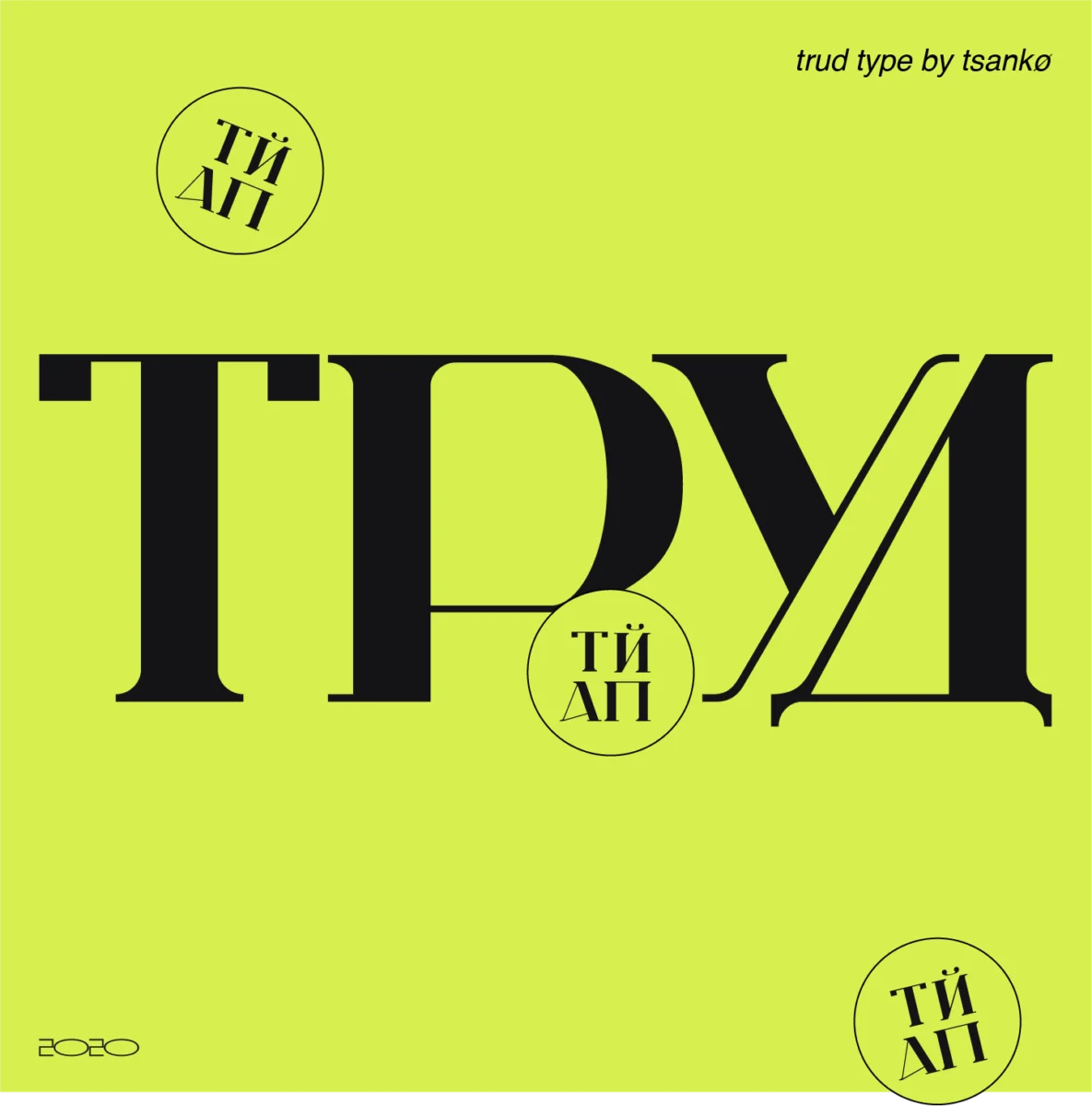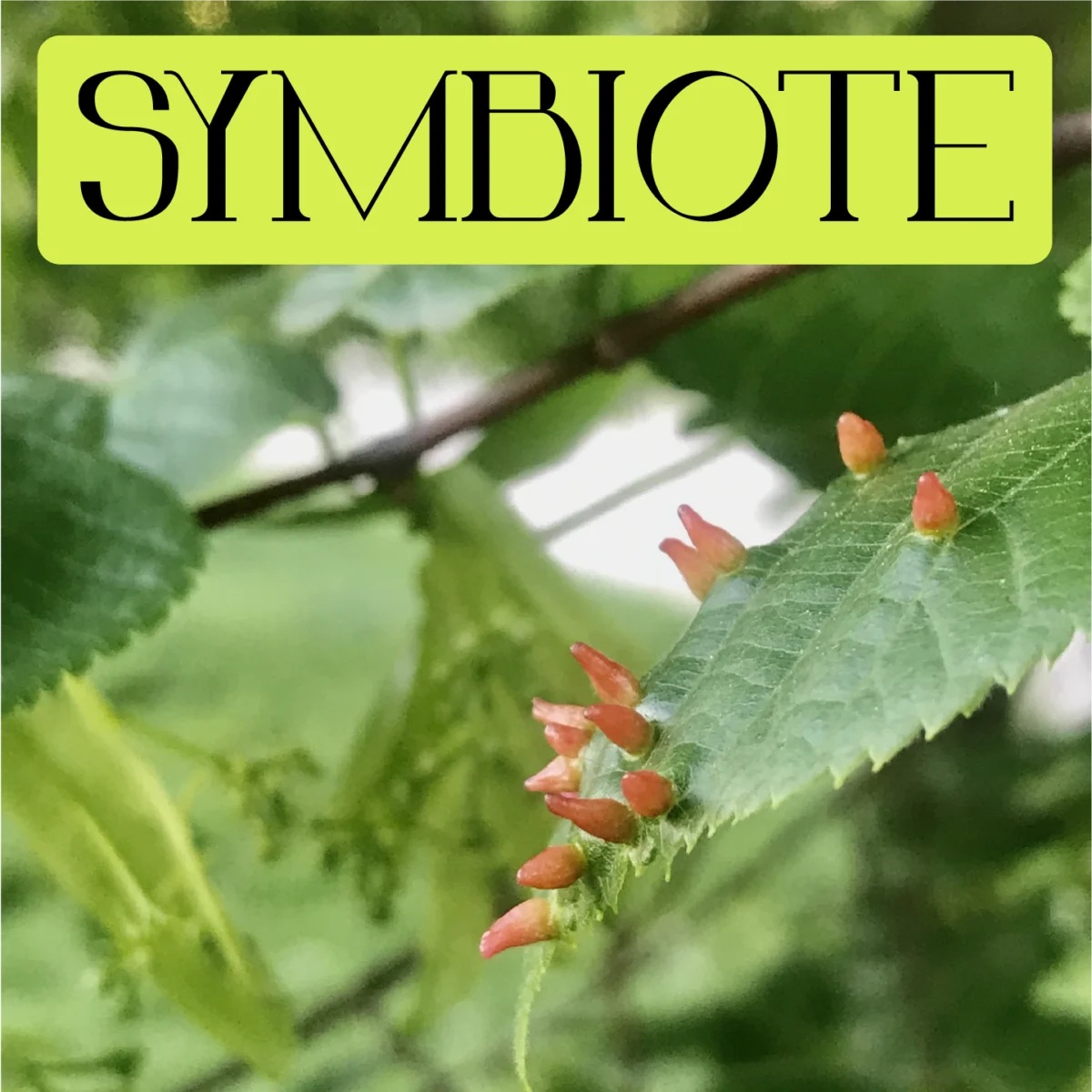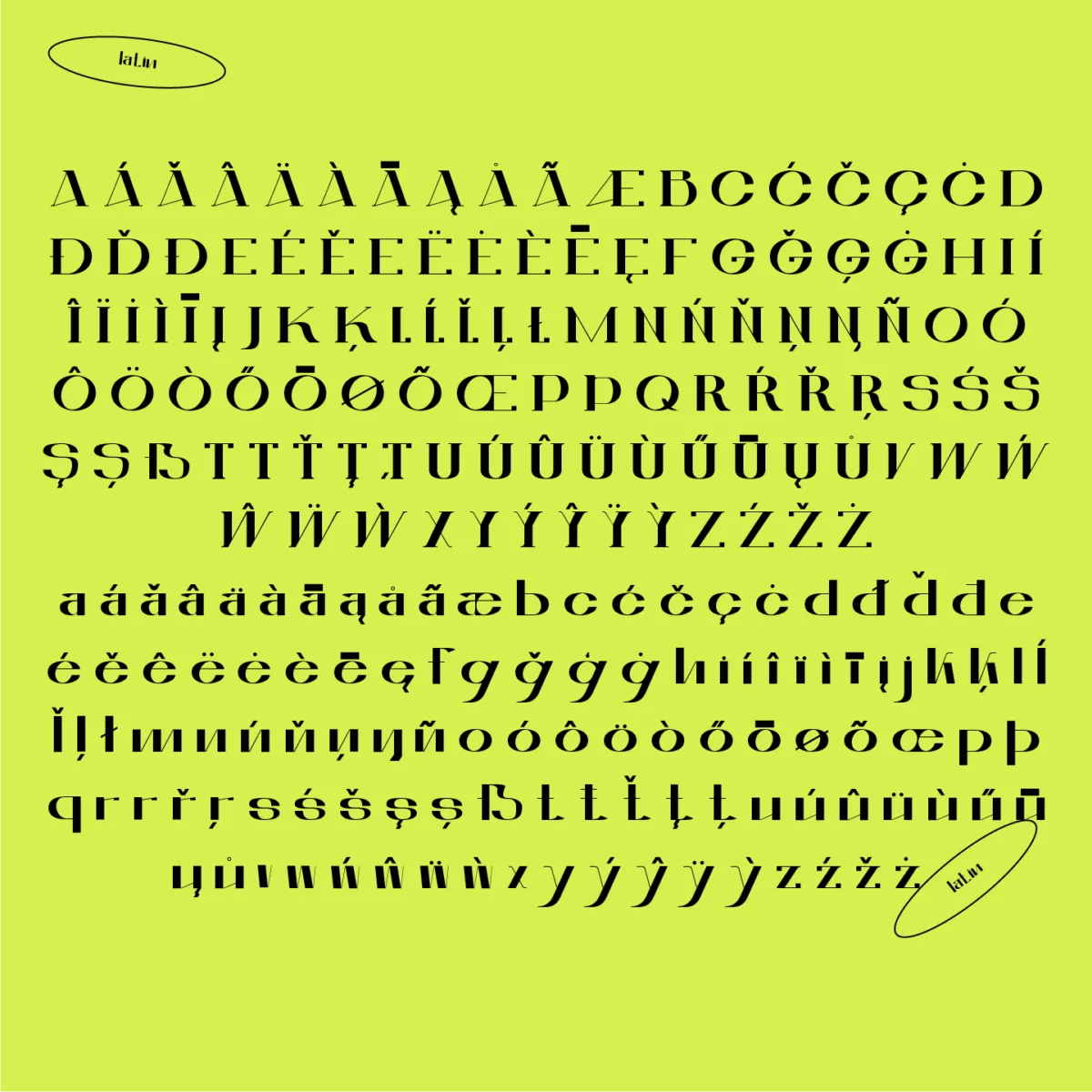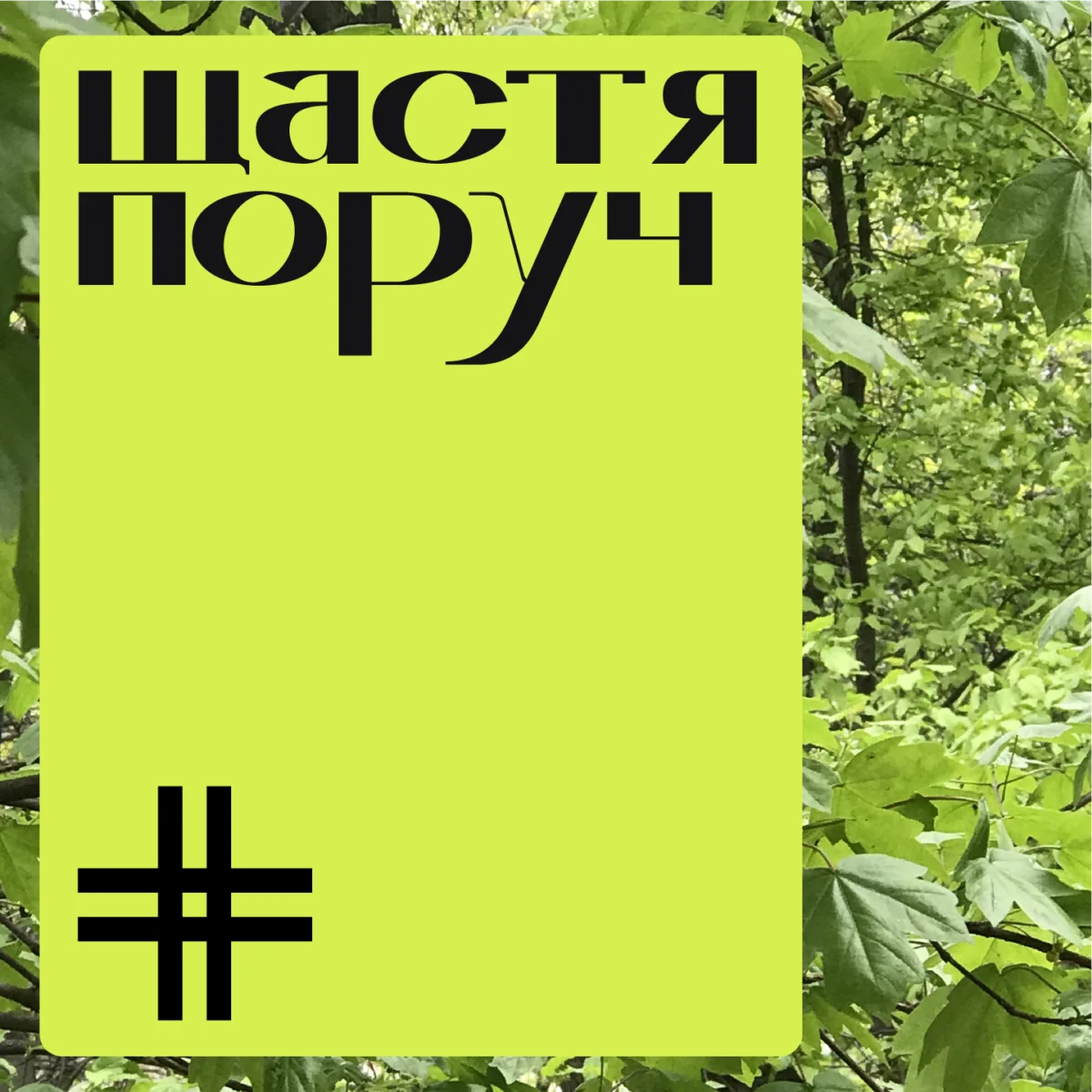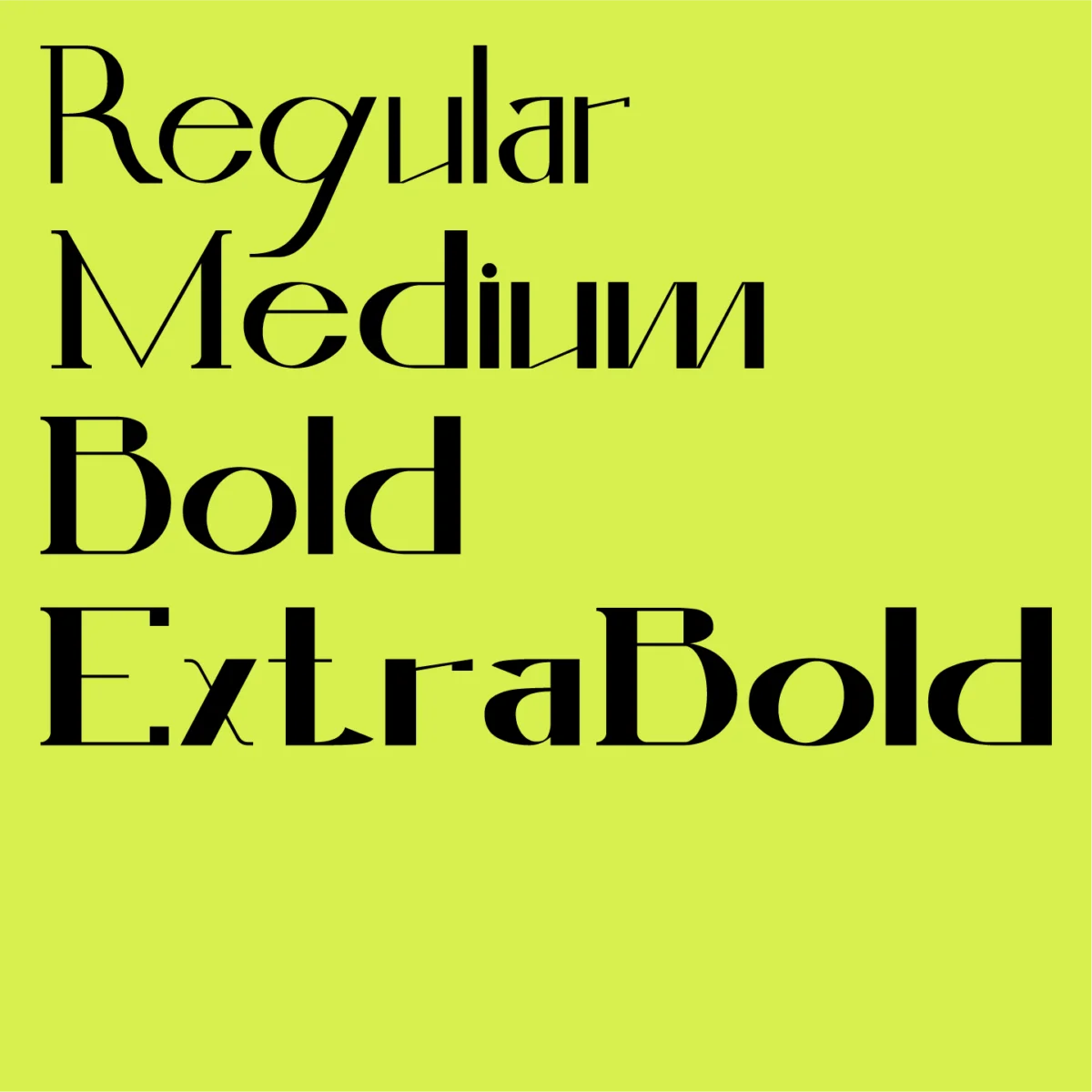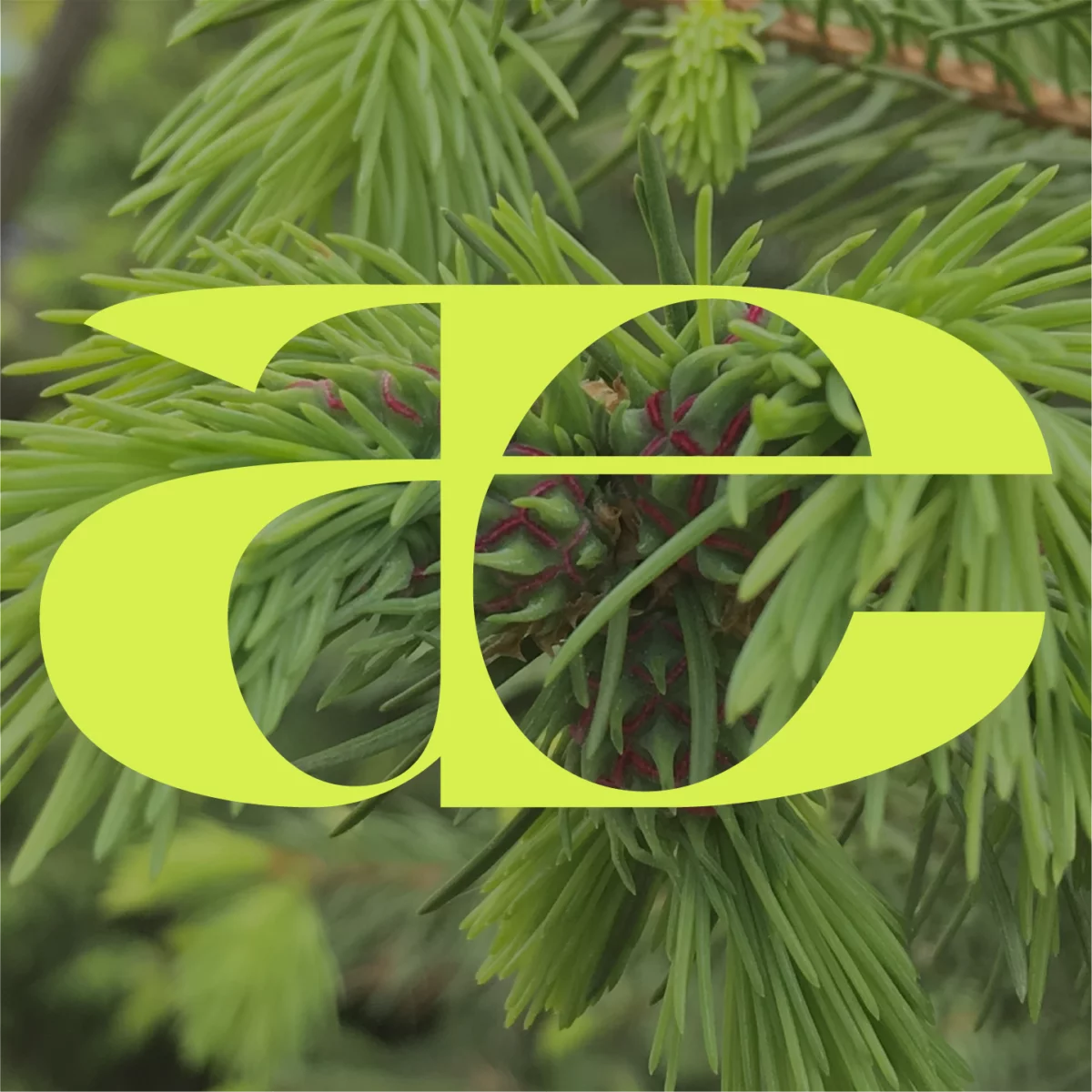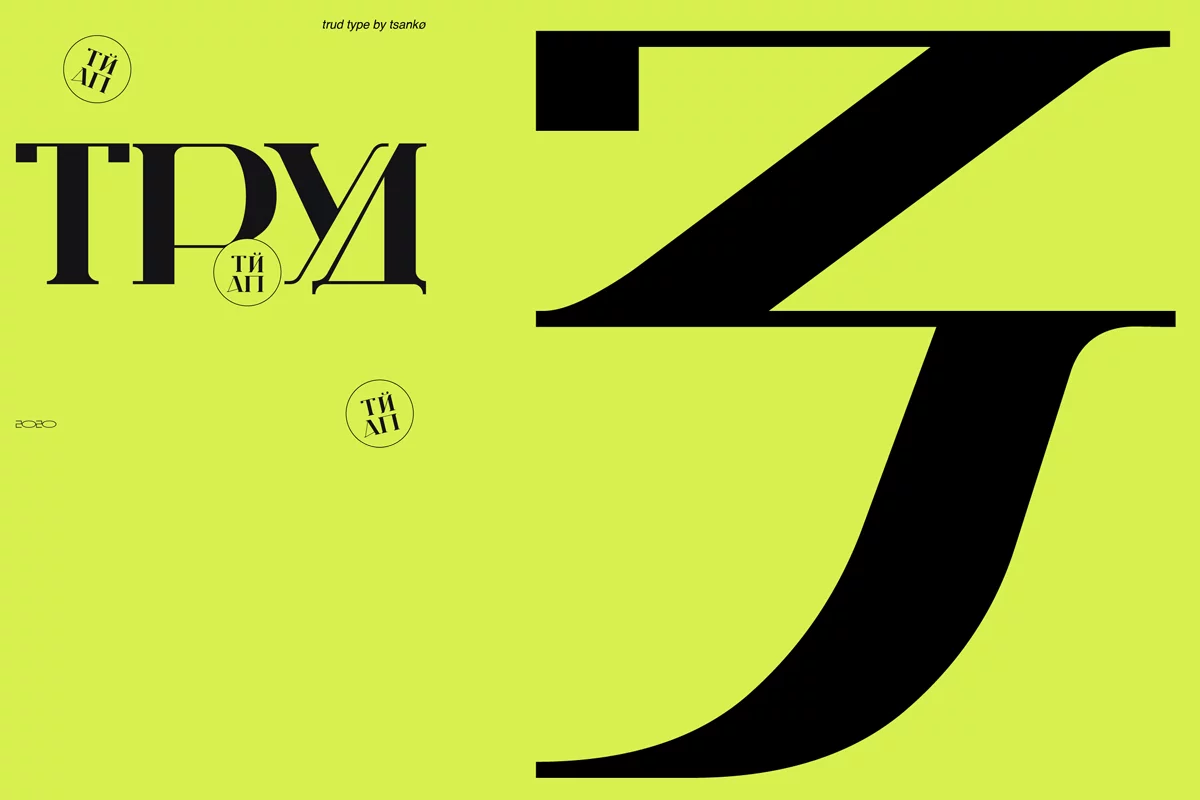
Newly released on Type Department, Trud Type is a multi-script typeface created by type designer, Ivan Tsanko (@ivantsankoo).
Based in Kiev, Ukraine, Ivan works as a type, UX and graphic designer and has created a number of stunning, multi-script fonts in Cyrillic and Latin. ‘For me,’ Ivan says, ‘a font is like a system of meanings, carrying fundamental values in a modern graphic system.‘ As a UX designer, Ivan is influenced by the interrelations between humans and machines, such as mobile interfaces and applications.
Trud Type is a fascinating hybrid of a display typeface, which integrates some humanist qualities with those of sans, slabs and Didots. Its titled axis gives an energy and fluidity to the otherwise angular framework, whilst the stroke contrasts create a certain tactile softness within its boxy exterior.